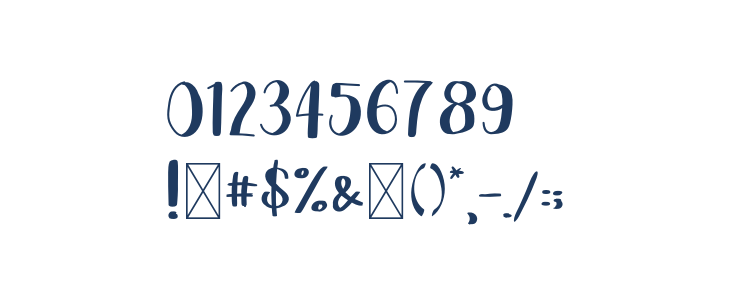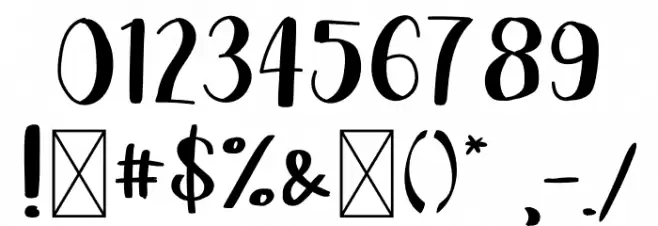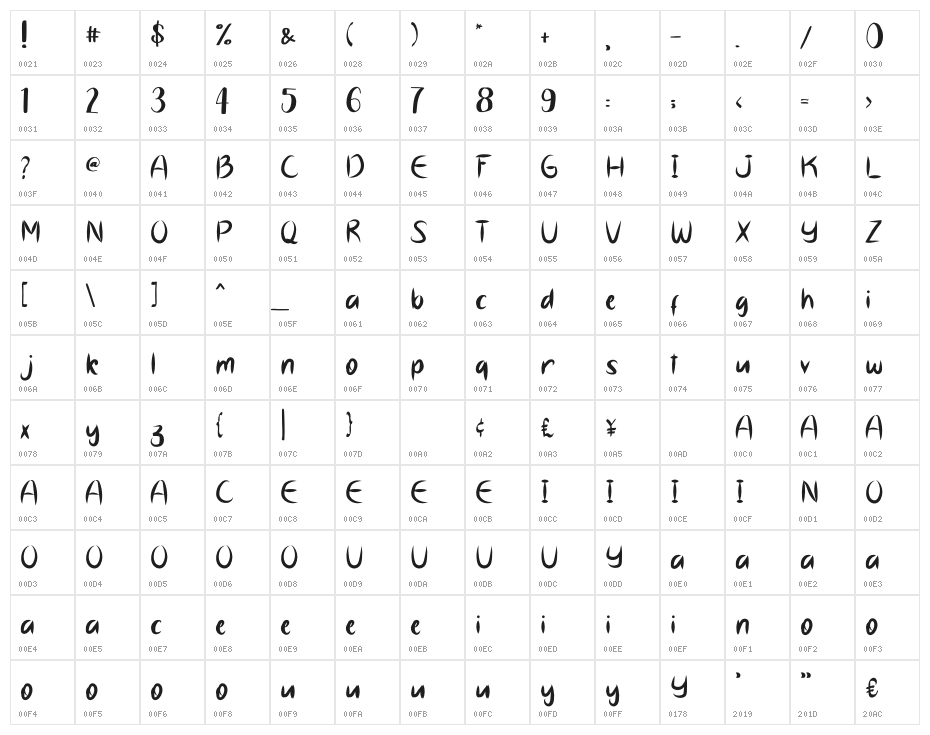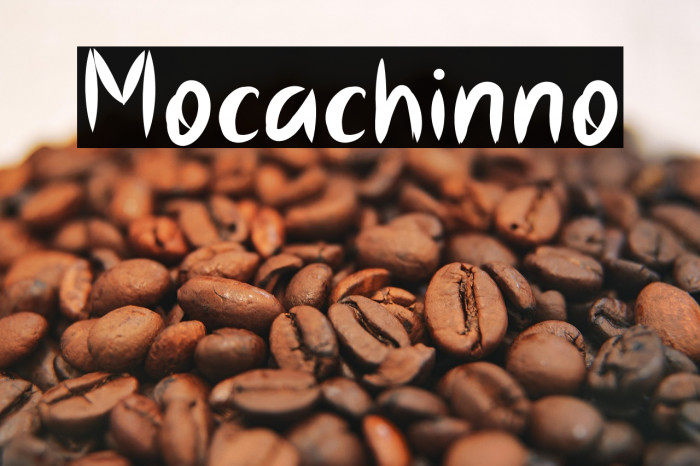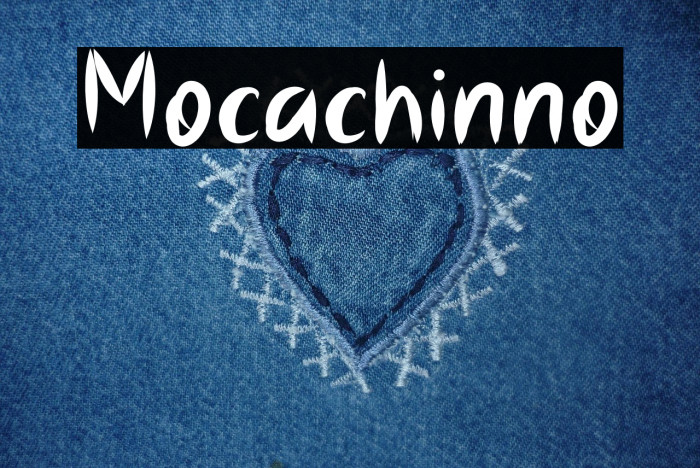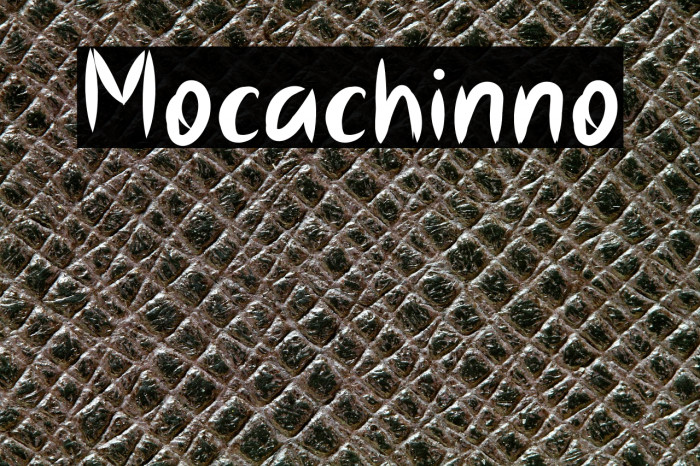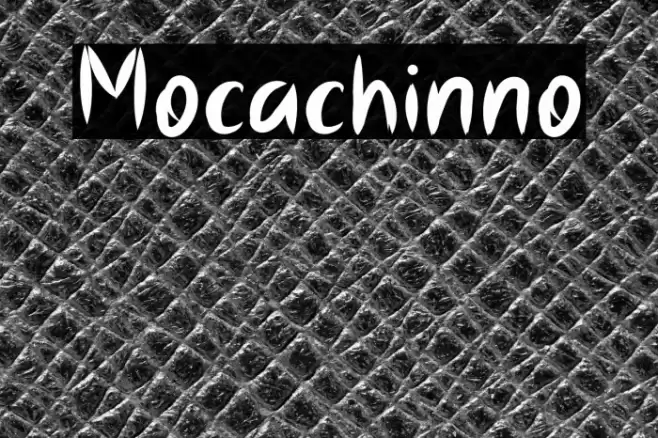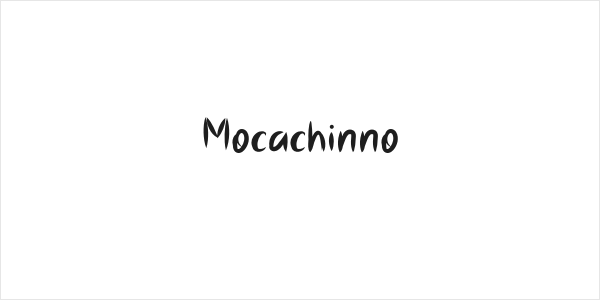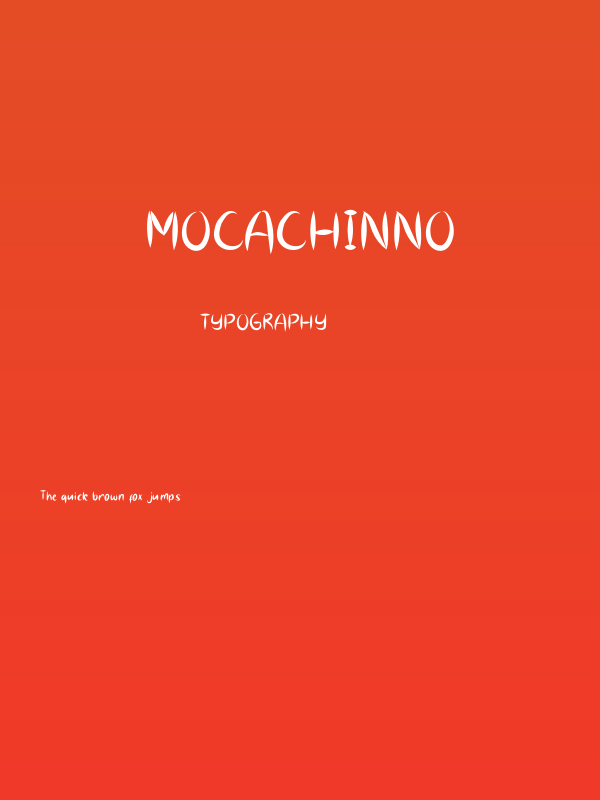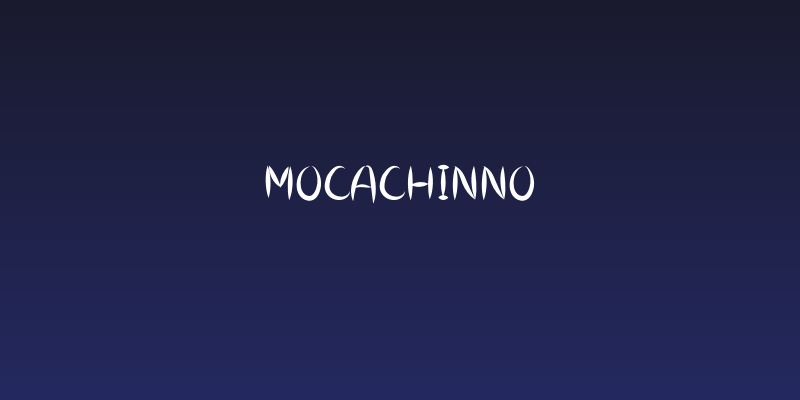
Mocachinno Font
Mocachinno Description
This font features a playful and dynamic style with a handwritten appearance. The characters exhibit a fluid motion, with varying stroke widths that add a sense of energy and movement. The uppercase letters are bold and slightly slanted, while the lowercase letters maintain a consistent flow, enhancing readability. Numbers and special characters are designed with the same lively flair, making them stand out. The overall design is informal yet stylish, suitable for creative projects that require a personal touch.